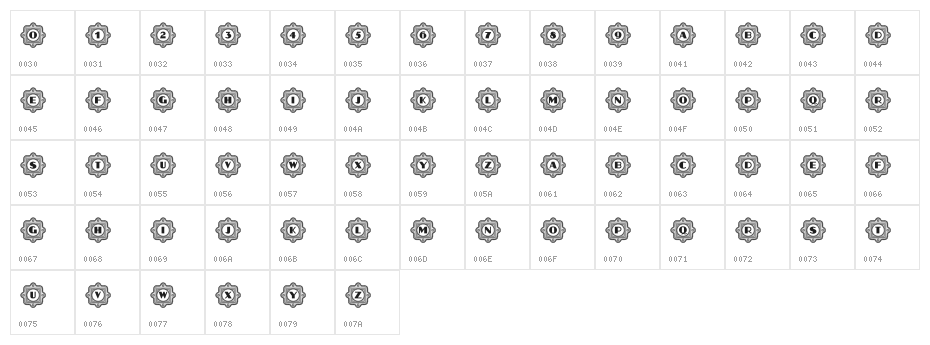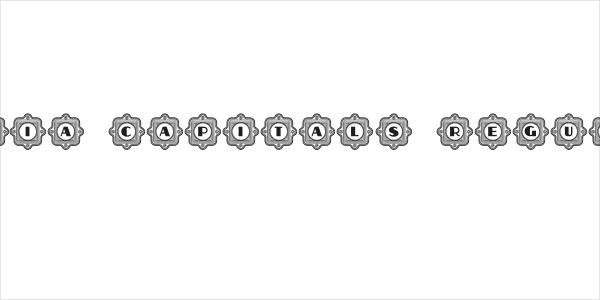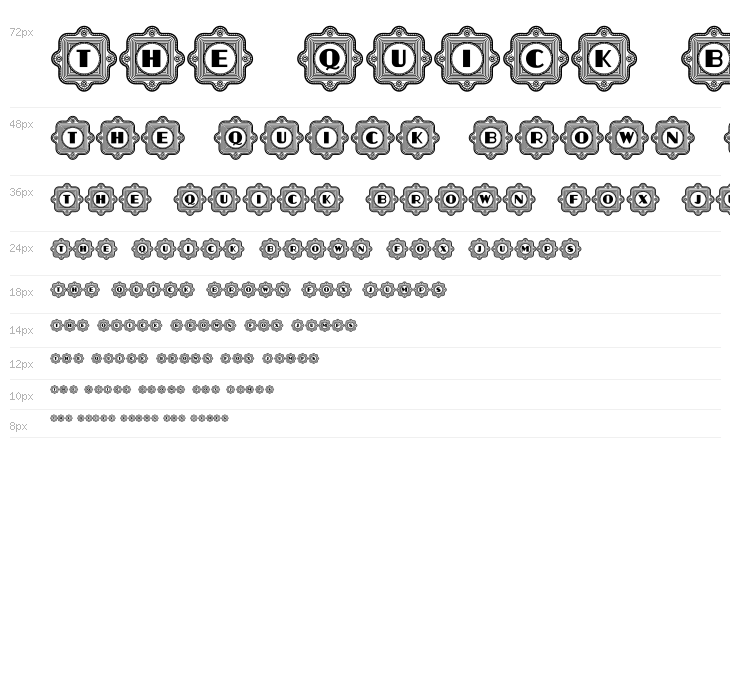
Aafia Capitals Regular Font
Aafia Capitals Regular Description
This font features uppercase letters and numbers encased in ornate, decorative frames that resemble vintage badges or emblems. Each character is bold and prominently displayed within a uniquely designed border, giving it a distinct and eye-catching appearance. The style is reminiscent of old-fashioned signage or heraldic symbols, making it ideal for projects that require a touch of elegance and sophistication. The intricate detailing of the borders adds a layer of complexity and charm, making it suitable for decorative purposes.
| Use Case | Logos, Invitations, Decorative elements |
| Proposed Projects | Ideal for vintage-themed designs, logos, invitations, or any project needing a decorative touch. |